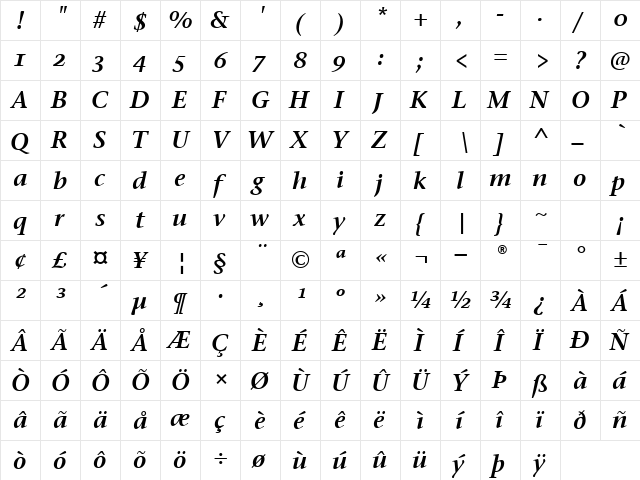
Stone Serif Sem OS ITCTT SemIta
Design Context for Stone Serif Sem OS ITCTT Typeface
Stone Serif Sem OS ITCTT brings classic typographic sensibility to the table — its serifs and measured letterforms reflect centuries of print heritage.
Pro Tip: Set Stone Serif Sem OS ITCTT with slightly loose tracking in headlines to let each letterform's detail read clearly at display sizes.